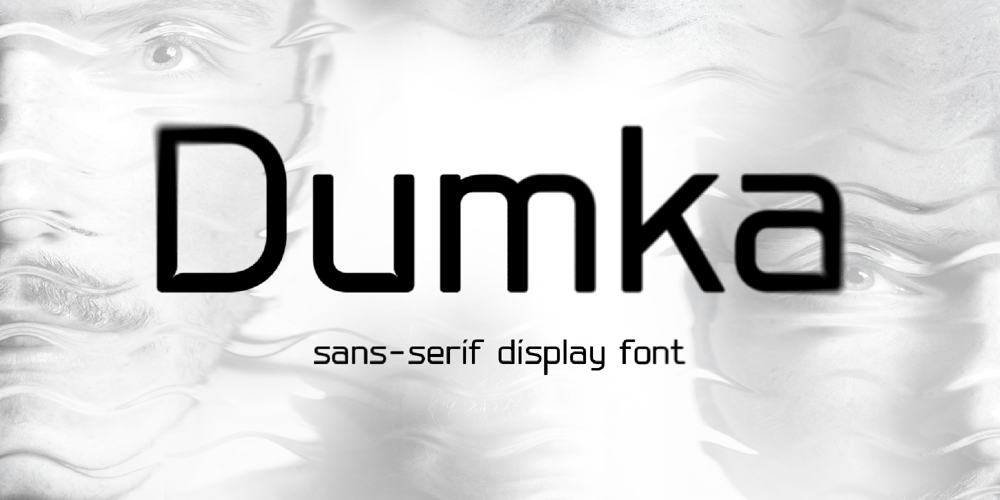
Dumka Font Family was designed by Antonina Chikhiro and published by Chikhiro. Dumka contains 1 styles and family package options. The ‘dumka’ font is a sleek and contemporary typeface characterized by its simplicity and geometric shapes. As a sans-serif font, it exudes a clean and minimalist aesthetic, making it perfect for modern design applications. Its multilingual support is a notable feature, accommodating both wide Latin and Cyrillic alphabets, which enhances its versatility for use across various languages and cultures.Ideal for graphic posters, technical advertisements, and urban stylistic designs, ‘dumka’ brings a sense of sophistication and professionalism to any project. Its clean lines and balanced proportions give it a timeless appeal, while its geometric elements add a touch of modernity and visual interest.Overall, ‘dumka’ is a versatile and stylish font that effortlessly combines functionality with aesthetic appeal, making it an excellent choice for a wide range of design projects.